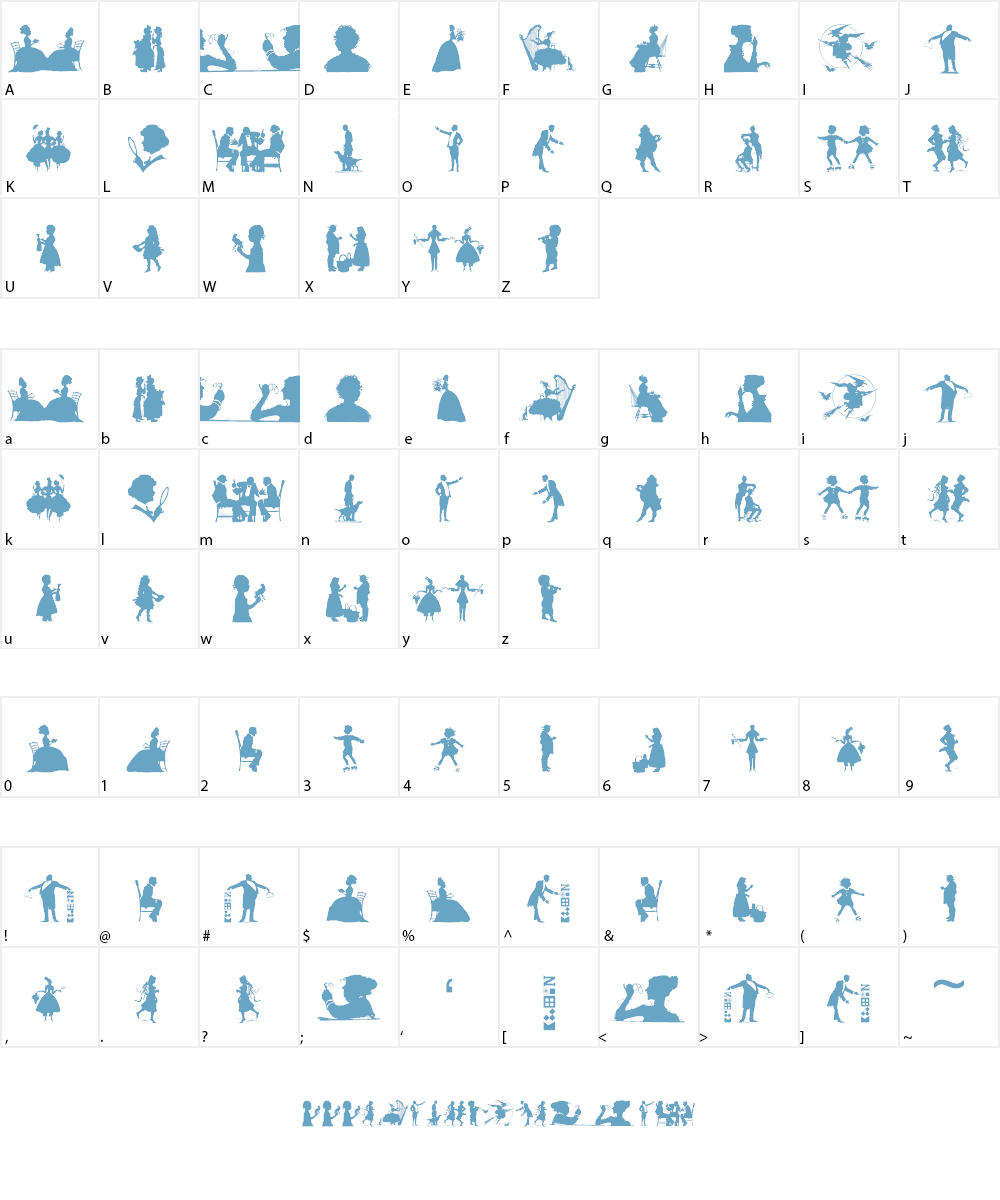
A hundred years ago individualised graphic design required black paper, a pair of small sharp-edged scissors and some talent for visual arts. Nowadays, there are still a few professional designers who occasionally prefer scissors to the brush. Even alphabets
can be cut by scissors.
The font includes a few of those friendly old silhouettes.
It can be used "as is" but also as inspiration to work with scissors. You don't need
black paper, any color would be fine, probably your old newspaper would do.